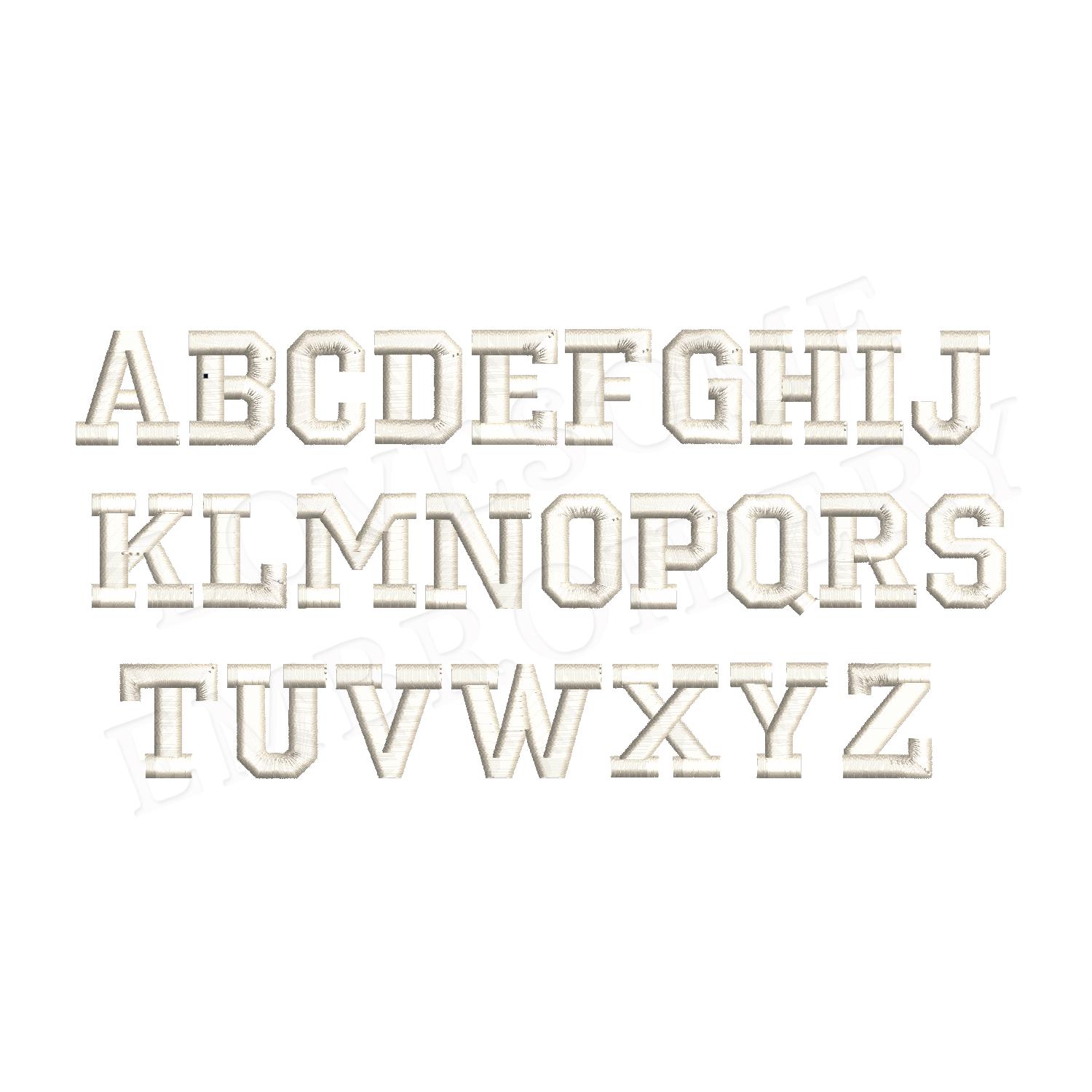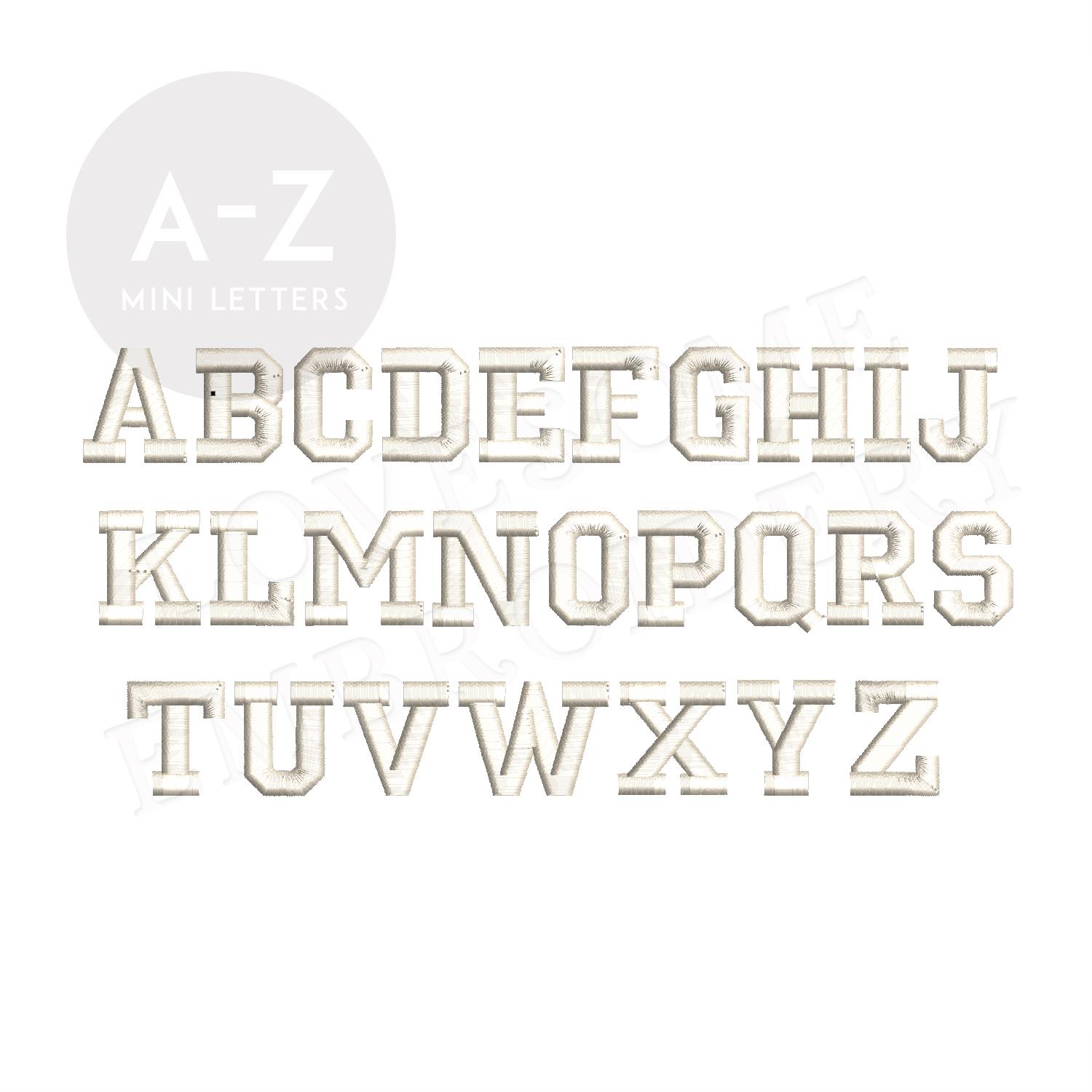
College Mini 1inch Mini Satin Font A-Z Machine Embroidery Tiny Sports Letters, Small Letters Embroidery Font | Lovesome Design
This listing features a machine embroidery font set which includes embroidery files of 26 satin stitch uppercase letters in 1inch size. (For the whole set, pls see the listing images.)
This font looks great when stitched below our popular College Outline Puff font (pls see listing photos).